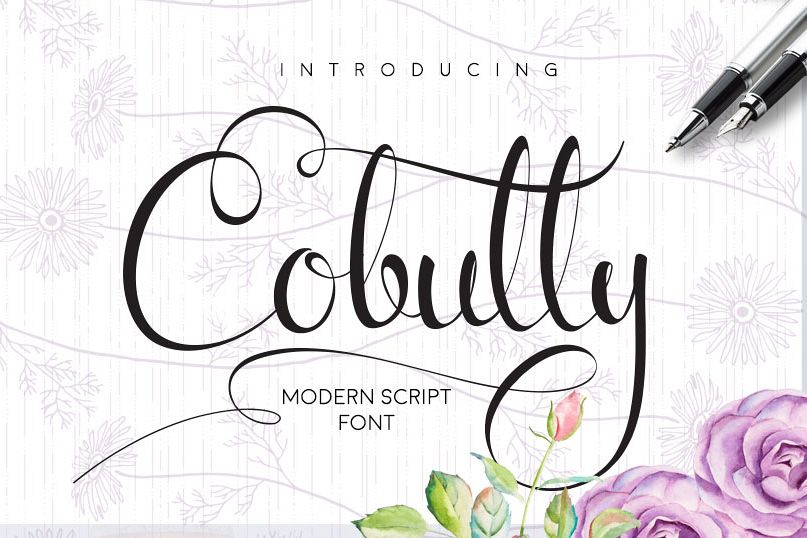
Cobully Font Script
CobullyScript-Regular
Introducing Cobully Script - a new fresh & modern script with a sweet calligraphy-style, decorative characters and a dancing baseline! So beautiful on invitation like greeting cards, branding materials, business cards, quotes, posters, and more! Cobully come with 315 Characters. The alternative characters were divided into several OpenType features such as Stylistic Sets and Contextual Alternates. The OpenType features can be accessed by using OpenType savvy programs such as Adobe Illustrator and Adobe InDesign. File include: Cobully.ttf Cobully.otf